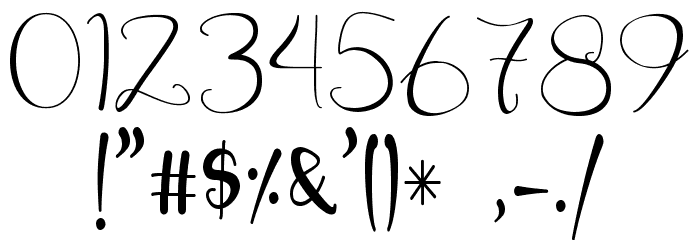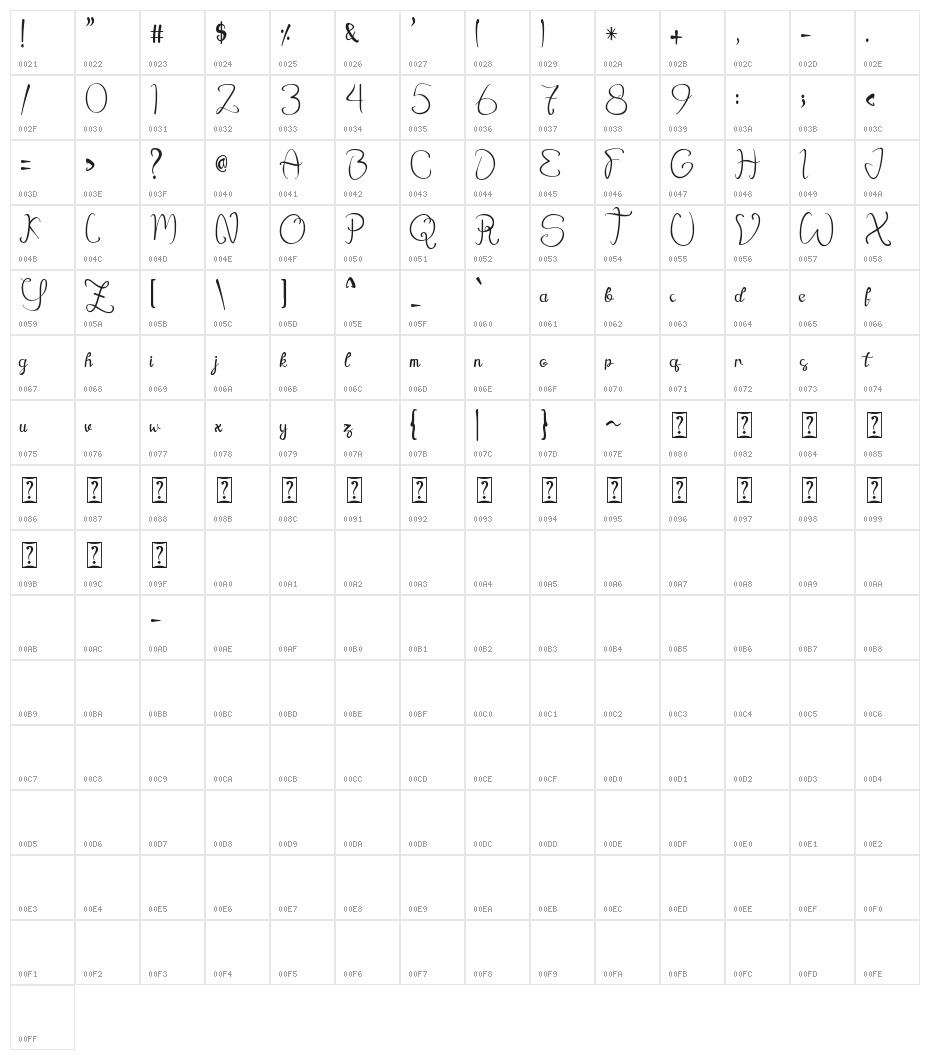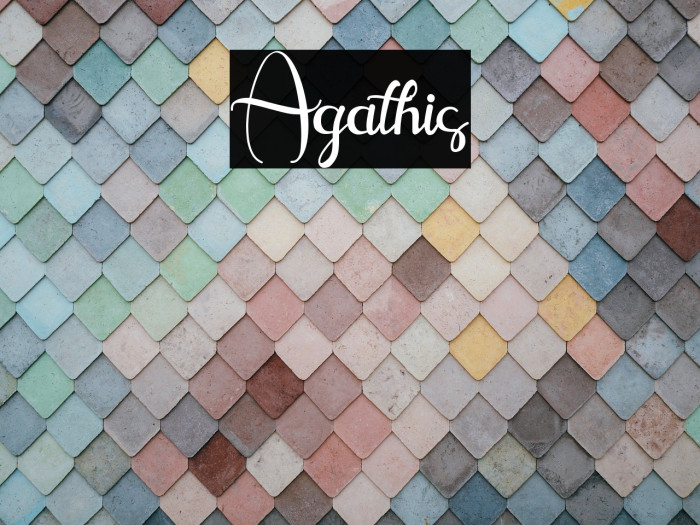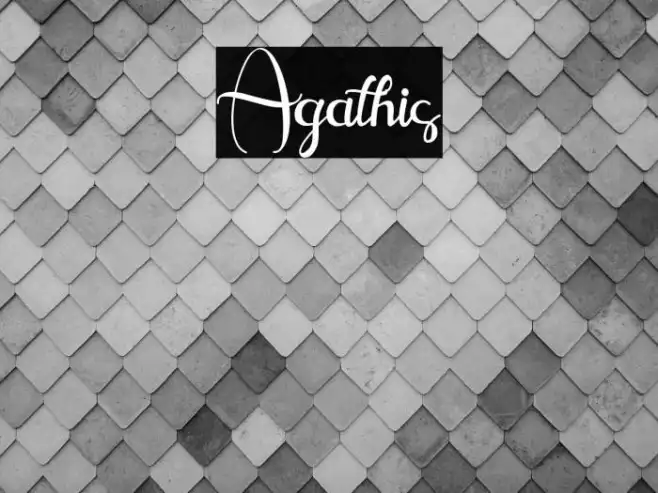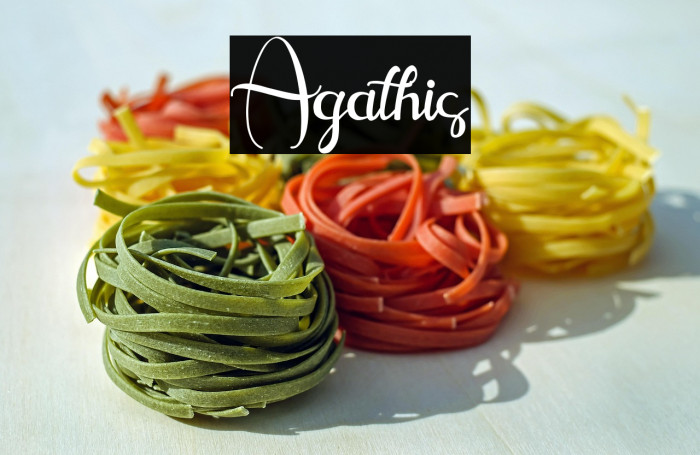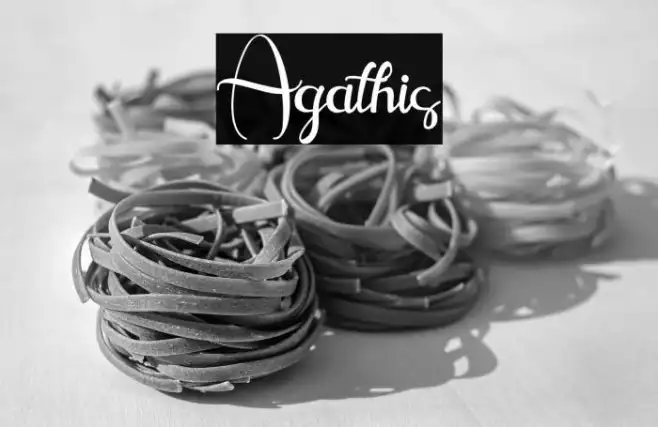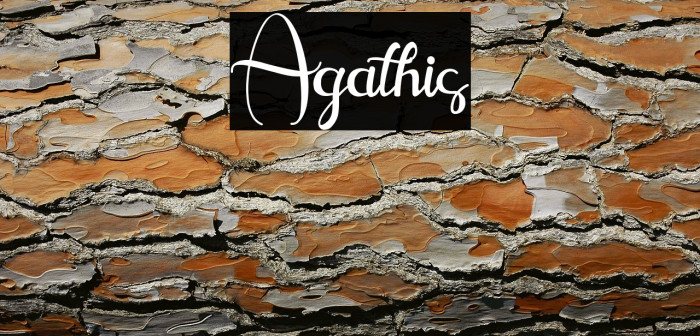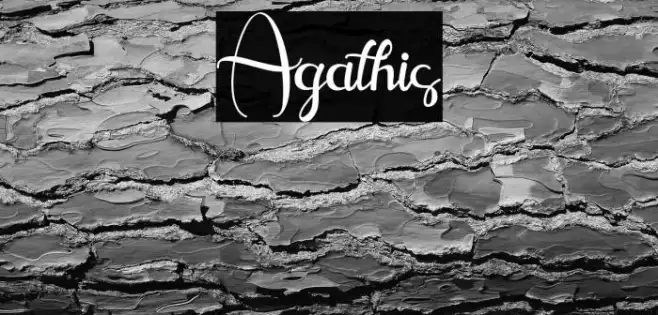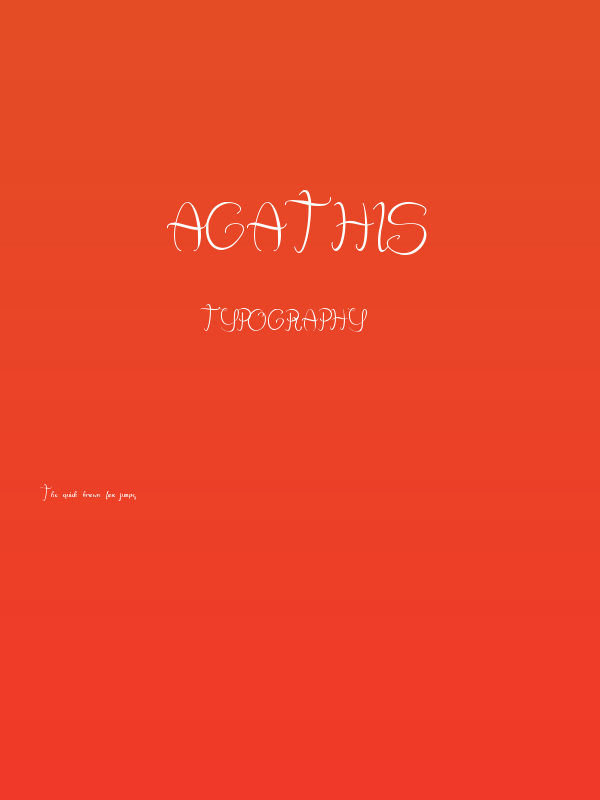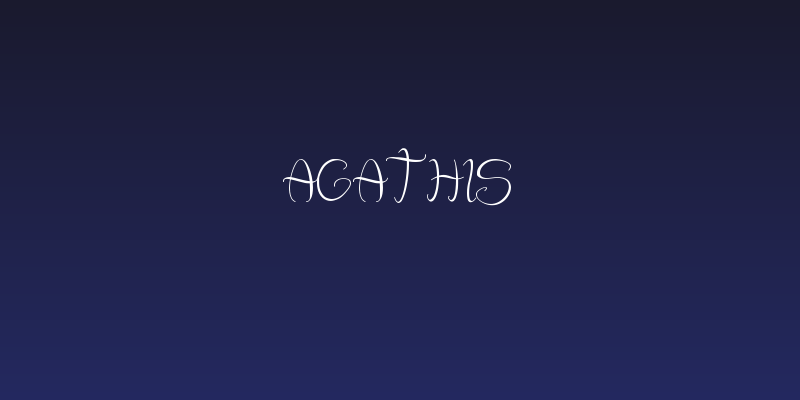
Agathis Font
Agathis Description
This font features a unique blend of elegance and playfulness, characterized by its flowing, cursive style. The uppercase letters are ornate, with intricate loops and swirls that give them a decorative flair. The lowercase letters maintain a more consistent, smooth flow, making them highly readable despite their artistic design. Numbers and special characters are designed to match the overall aesthetic, with a balance of curves and straight lines. The font's whimsical nature makes it stand out, yet it retains a level of sophistication suitable for various applications.